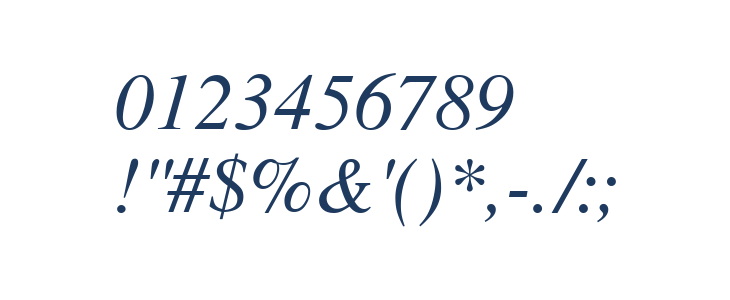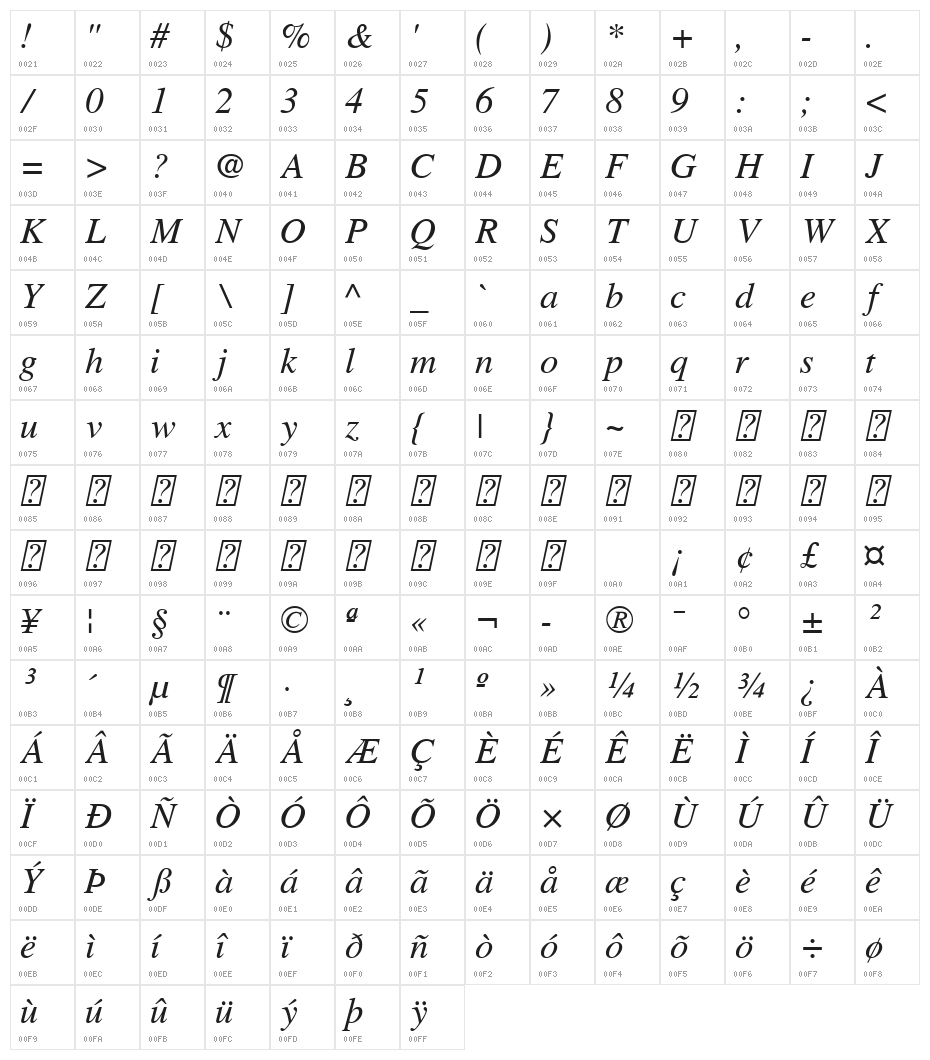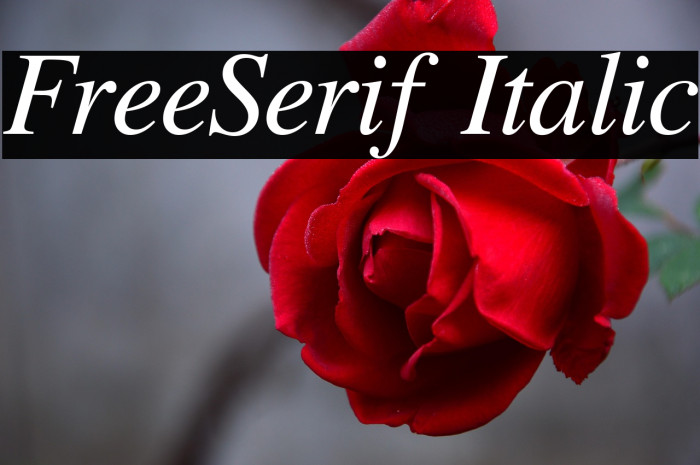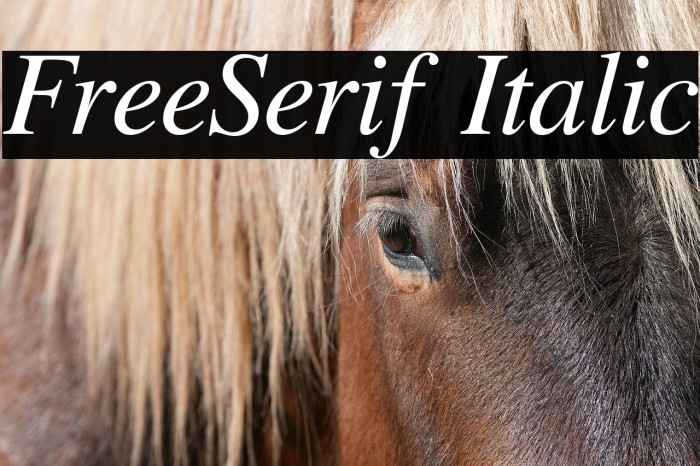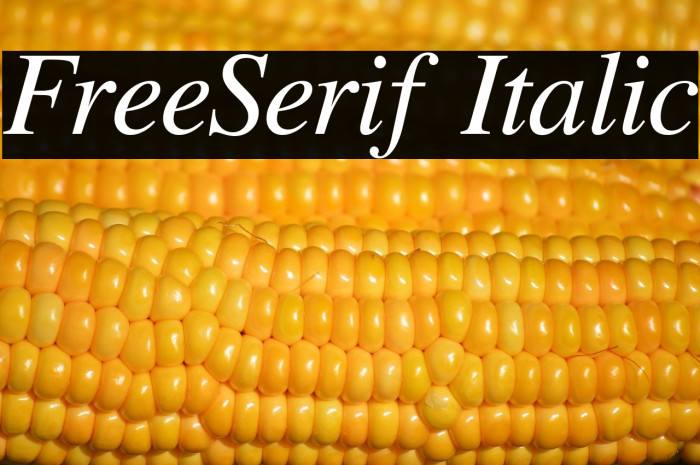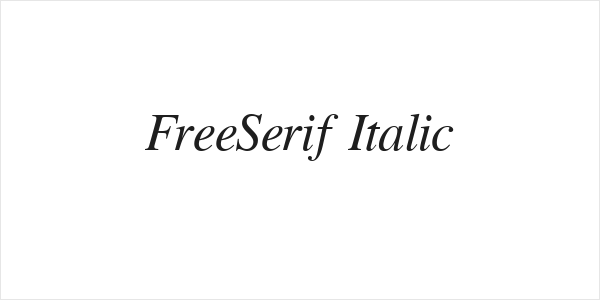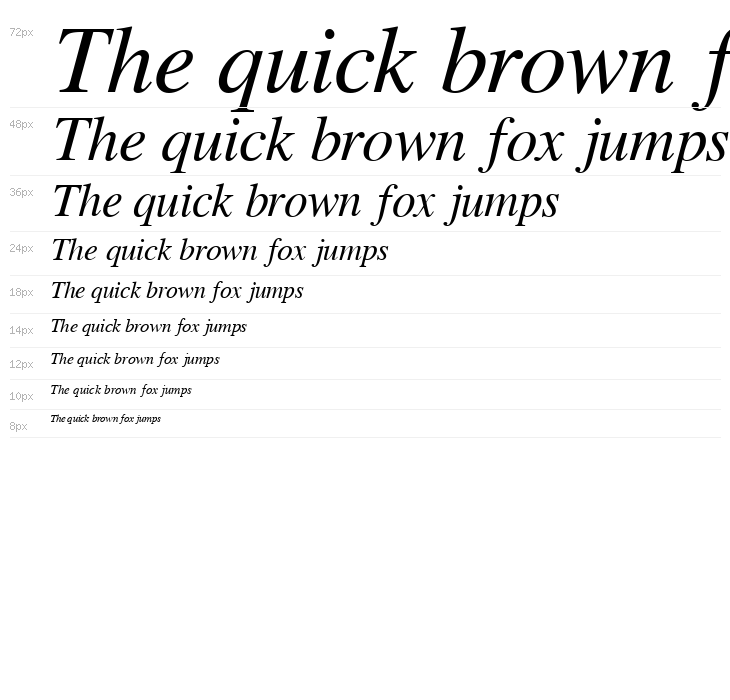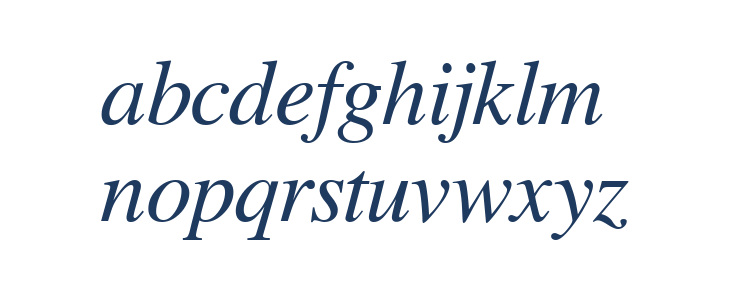
FreeSerif Italic Font
FreeSerif Italic Description
This font features a classic serif style with an elegant italic slant, giving it a sophisticated and refined appearance. The characters are well-defined with smooth curves and sharp serifs, providing a traditional yet stylish look. The uppercase letters are tall and commanding, while the lowercase letters maintain a consistent flow, enhancing readability. The numerals are clear and distinct, matching the overall aesthetic of the font. Special characters are designed with the same attention to detail, ensuring they blend seamlessly with the rest of the typeface. This font is versatile, suitable for both formal and creative projects.
| Proposed Projects | Ideal for book covers, formal invitations, branding, and editorial design. |